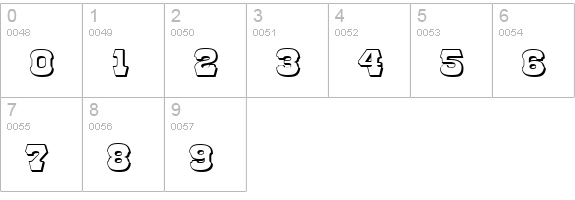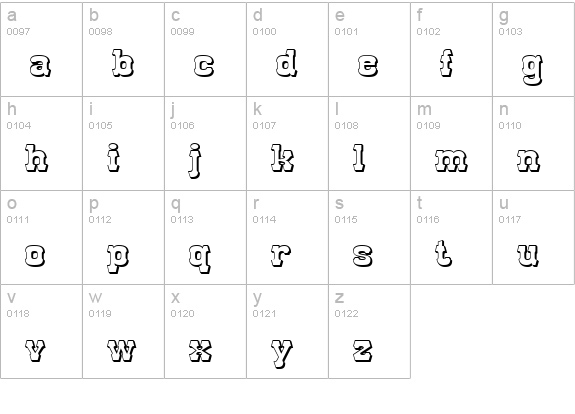
Red Dog Saloon Open Font Details
The Red Dog Saloon Open font is a bold and captivating typeface that exudes a vintage Western charm. With its striking letterforms and rugged appeal, this font is perfect for adding a touch of authenticity to your design projects. Featuring a unique blend of sharp edges and rounded corners, Red Dog Saloon Open effortlessly captures the essence of the Wild West. Its strong and confident presence makes it ideal for headlines, logos, posters, and any other creative endeavor that requires a bold statement. One of the most remarkable aspects of Red Dog Saloon Open is that it is freely available to download at FontsMarket.com. This means that you can easily access this remarkable font without any cost or hassle. Whether you are a professional designer or a casual enthusiast, you can now add this remarkable font to your collection without breaking the bank. The versatility of Red Dog Saloon Open is truly remarkable. Its bold and commanding presence makes it an excellent choice for designs that require a strong impact. However, it also possesses a certain elegance and grace that allows it to be used in more refined and sophisticated projects as well. The attention to detail in Red Dog Saloon Open is truly impressive. Each letter and character has been meticulously crafted to ensure a seamless and visually appealing experience. From its bold uppercase letters to its delicate lowercase counterparts, every aspect of this font is designed to perfection. Whether you are designing a vintage-inspired poster, a rustic-themed logo, or a retro-inspired website, Red Dog Saloon Open is the ideal font to bring your vision to life. Its timeless appeal and remarkable versatility make it a valuable addition to any designer's toolbox. So why wait? Head over to FontsMarket.com and download Red Dog Saloon Open for free today. Unleash your creativity and let the Wild West spirit take over your designs with this stunning and captivating font.